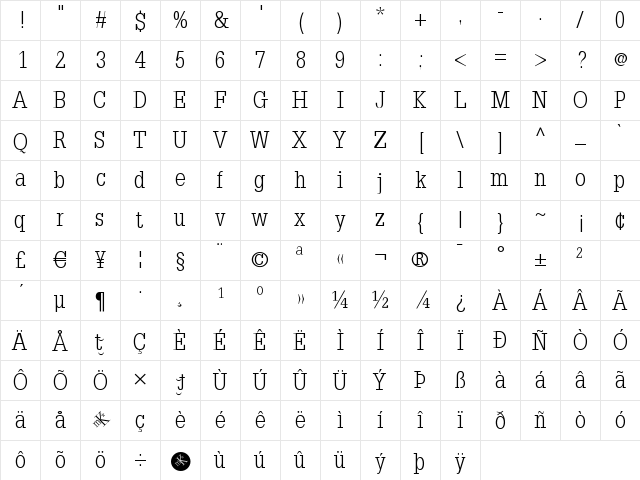
Napoleodoni Regular Free Font
Napoleodoni Regular
Napoleodoni Family
Complete Napoleodoni Regular glyph index. Displaying only characters natively supported by Napoleodoni Regular font.
Design Context for Napoleodoni
Napoleodoni is a composed and adaptable typeface that performs quietly and consistently across a wide range of design contexts.